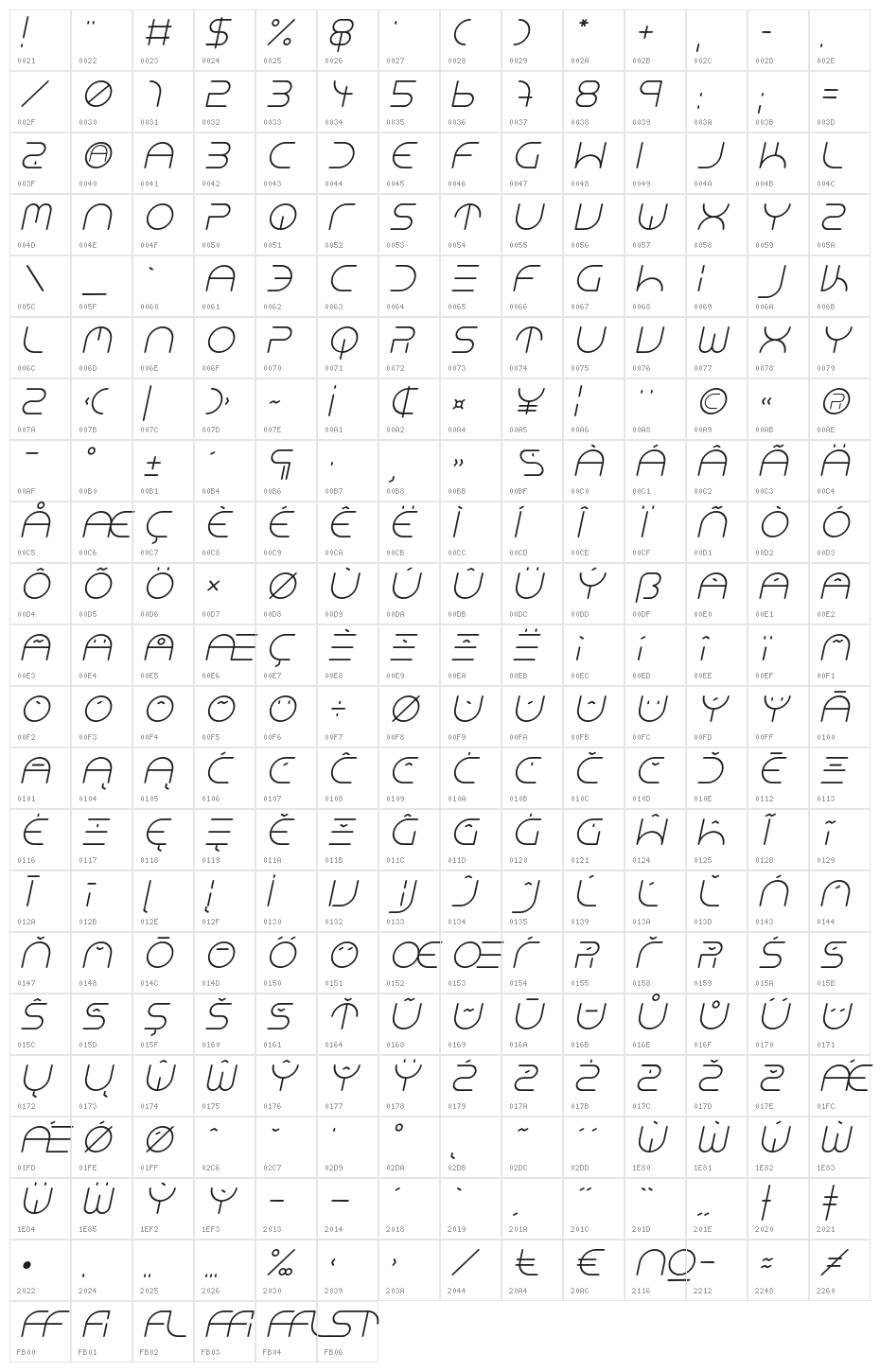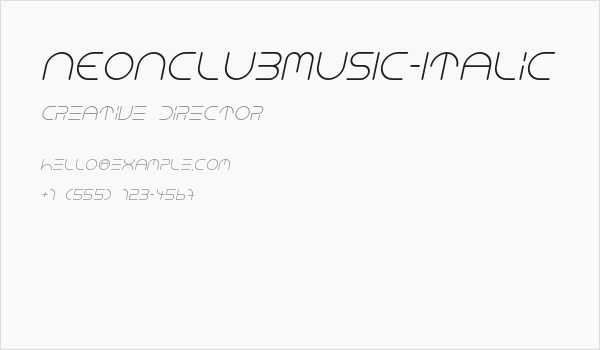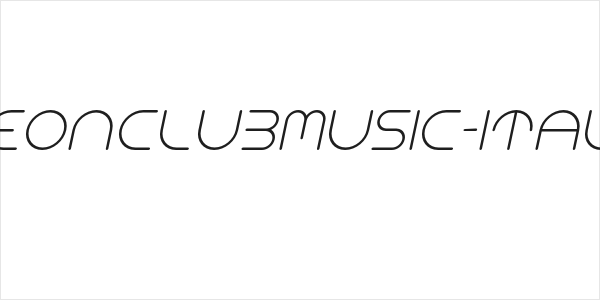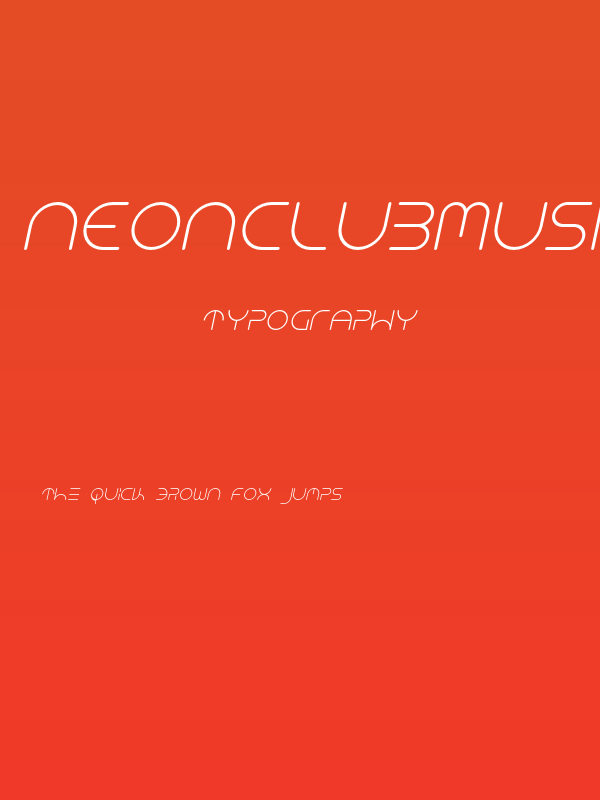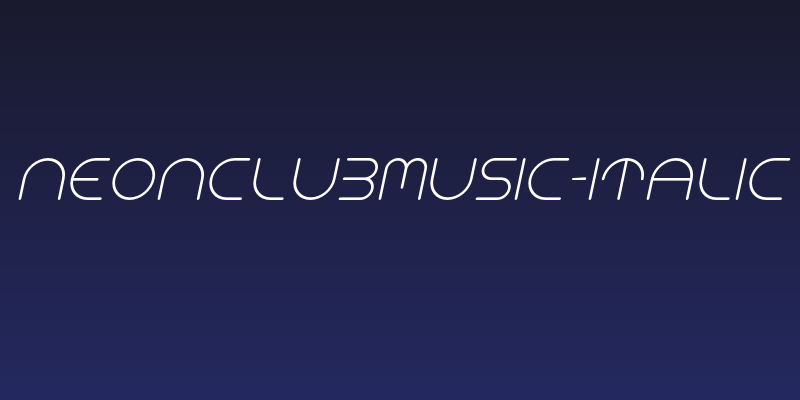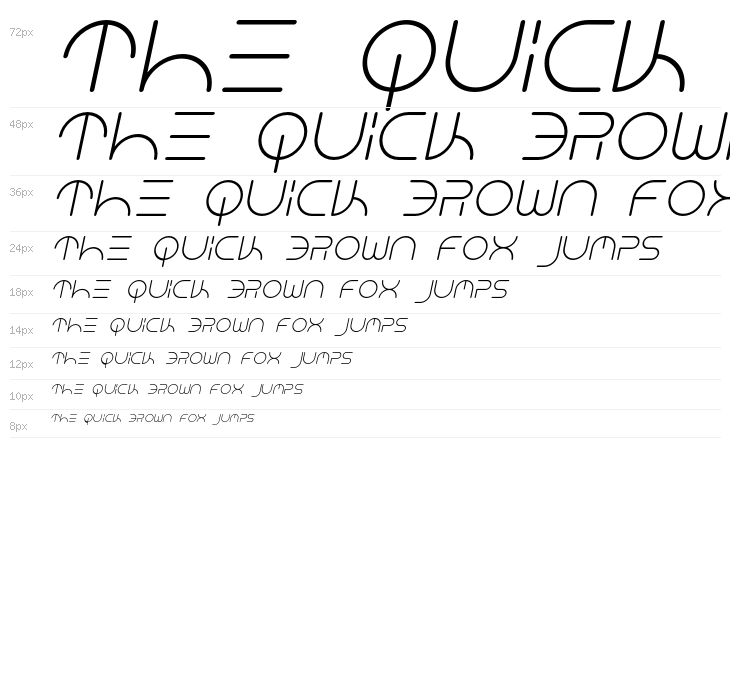
NEONCLUBMUSIC-Italic Font
NEONCLUBMUSIC-Italic Description
This font features a sleek, modern design with a futuristic flair. The characters are composed of clean, continuous lines that create a sense of motion and fluidity. The uppercase and lowercase letters maintain a consistent style, with rounded edges and a slightly condensed form. Numbers and special characters follow the same aesthetic, ensuring a cohesive look across all text. The italic style adds a dynamic touch, enhancing the font's contemporary appeal. This font is ideal for projects that require a modern, tech-inspired look.
| Overall Style | Futuristic, Sleek |
| Use Case | Headlines, Logos, Digital Media |
| Proposed Projects | Ideal for tech branding, digital media, futuristic posters, and modern web design. |